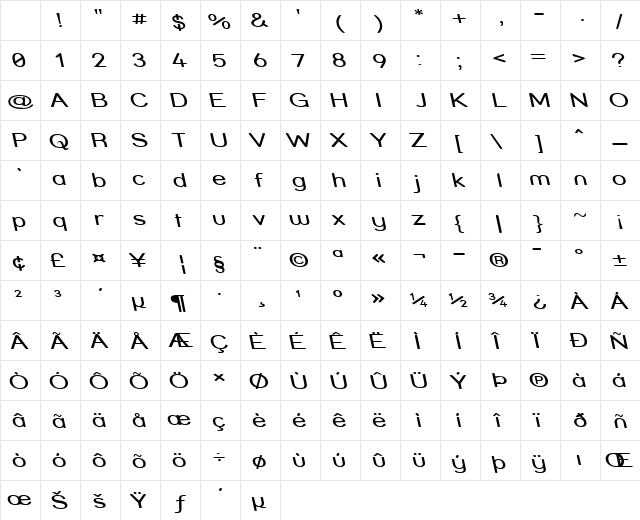
Complete Street - Compressed Reverse Italic glyph index. Displaying only characters natively supported by Street - Compressed Reverse Italic font.
Street - Compressed Reverse is a composed and adaptable typeface that performs quietly and consistently across a wide range of design contexts. The slanted form adds forward momentum and visual energy.